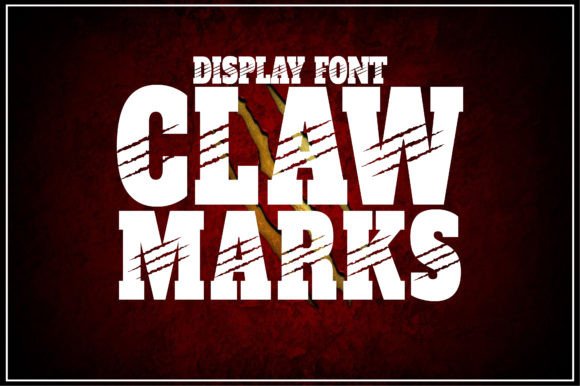
Introducing Claw Marks Font: The Ultimate Display Font for Dramatic Designs
Are you looking for a font that can add a touch of drama and creativity to your designs? Look no further than Claw Marks Font! This stunning display font is perfect for crafty ideas, DIY projects, and any design that needs a bold and eye-catching element. In this article, we’ll dive into the features and benefits of Claw Marks Font, and explore how you can use it to take your designs to the next level.
What is Claw Marks Font?
Claw Marks Font is a unique and dramatic display font that is inspired by the rough, textured look of claw marks. The font features bold, chunky letters with a distressed texture that gives it a rugged, handmade feel. The font is perfect for designs that need a bold and attention-grabbing element, such as titles, headings, and logos.
Key Features of Claw Marks Font
So, what makes Claw Marks Font so special? Here are some of its key features:
- Unique and dramatic design: Claw Marks Font features a bold and eye-catching design that is sure to grab attention.
- Distressed texture: The font has a rough, textured look that gives it a rugged, handmade feel.
- Perfect for display text: Claw Marks Font is designed specifically for display text, making it perfect for titles, headings, and logos.
Benefits of Using Claw Marks Font
So, why should you use Claw Marks Font in your designs? Here are some of the benefits:
- Adds a touch of drama and creativity: Claw Marks Font adds a bold and eye-catching element to your designs, making them stand out from the crowd.
- Perfect for crafty and DIY projects: The font’s distressed texture and handmade feel make it perfect for crafty and DIY projects.
- Increases visual impact: The font’s bold and chunky design makes it perfect for designs that need to grab attention.
- Versatile: Claw Marks Font can be used in a variety of designs, from logos and titles to posters and flyers.
How to Use Claw Marks Font in Your Designs
Using Claw Marks Font in your designs is easy! Here are some tips:
- Use it as a title or heading: Claw Marks Font is perfect for titles and headings, adding a bold and eye-catching element to your designs.
- Pair it with other fonts: The font pairs well with other fonts, making it easy to create a unique and visually appealing design.
- Experiment with different colors: The font looks great in a variety of colors, so don’t be afraid to experiment and find the perfect color for your design.
- Use it for logos and branding: Claw Marks Font is perfect for logos and branding, adding a bold and memorable element to your designs.
Tips and Tricks for Getting the Most Out of Claw Marks Font
Here are some tips and tricks for getting the most out of Claw Marks Font:
- Use it sparingly: Because of its bold and eye-catching design, it’s best to use Claw Marks Font sparingly to avoid overwhelming the design.
- Experiment with different sizes: The font looks great in a variety of sizes, so don’t be afraid to experiment and find the perfect size for your design.
- Pair it with images: The font pairs well with images, making it easy to create a unique and visually appealing design.
In conclusion, Claw Marks Font is a unique and dramatic display font that is perfect for adding a touch of creativity and drama to your designs. With its bold and eye-catching design, distressed texture, and ease of use, it’s the perfect font for crafty and DIY projects, logos, titles, and headings. By following the tips and tricks outlined in this article, you can get the most out of Claw Marks Font and take your designs to the next level.
- What is Claw Marks Font?: Claw Marks Font is a unique and dramatic display font inspired by the rough, textured look of claw marks.